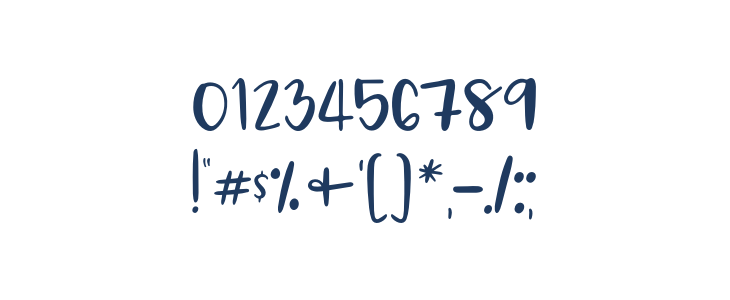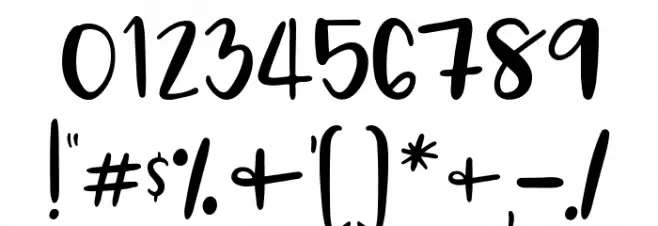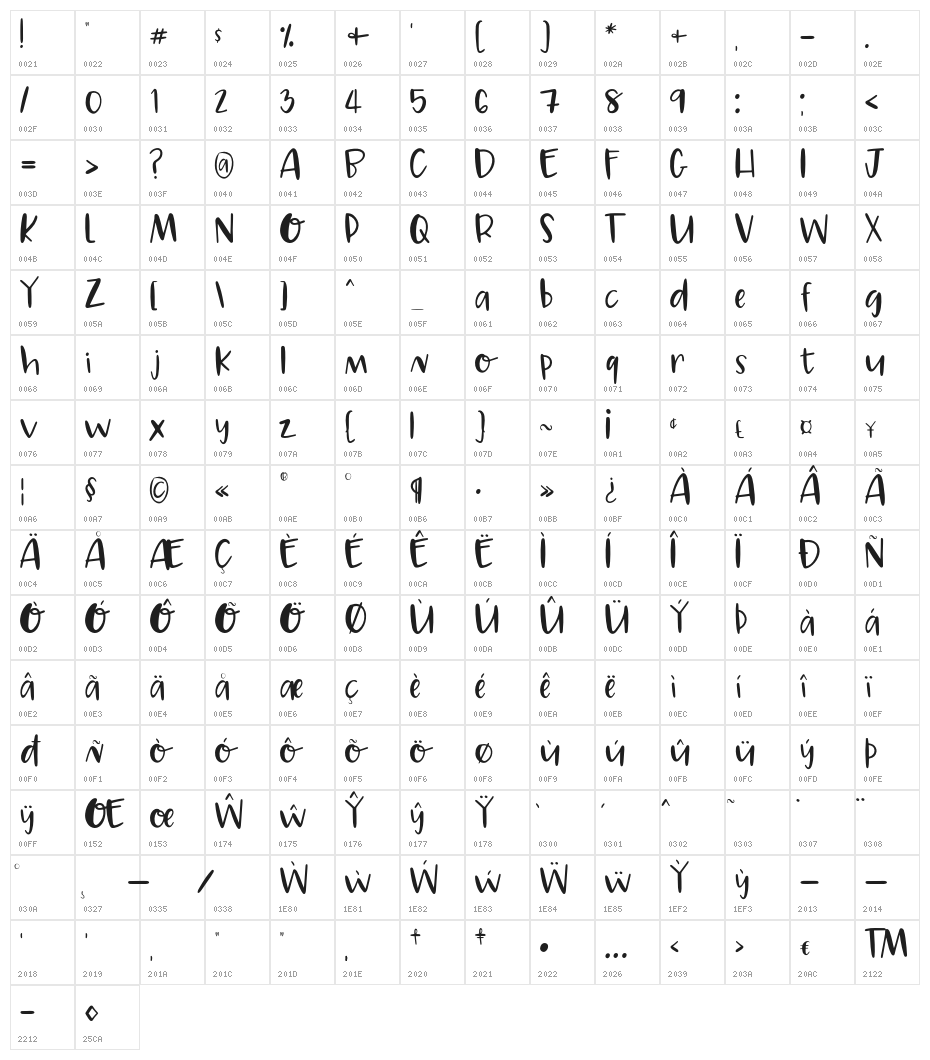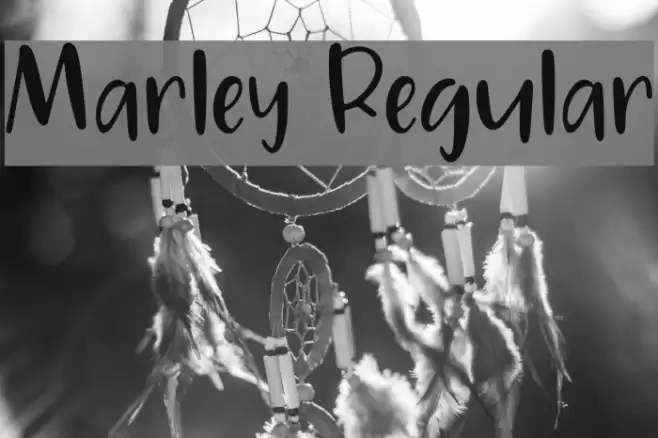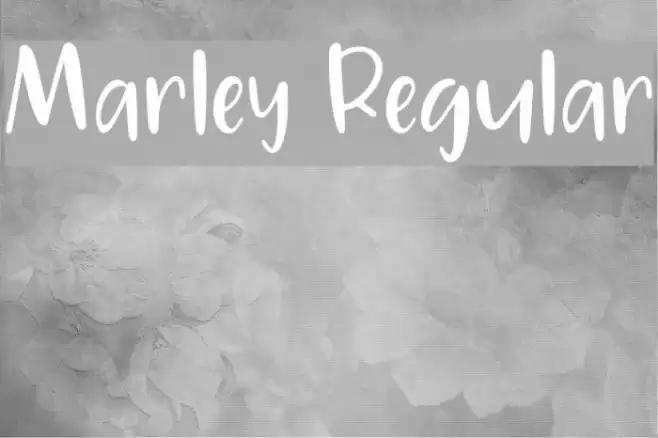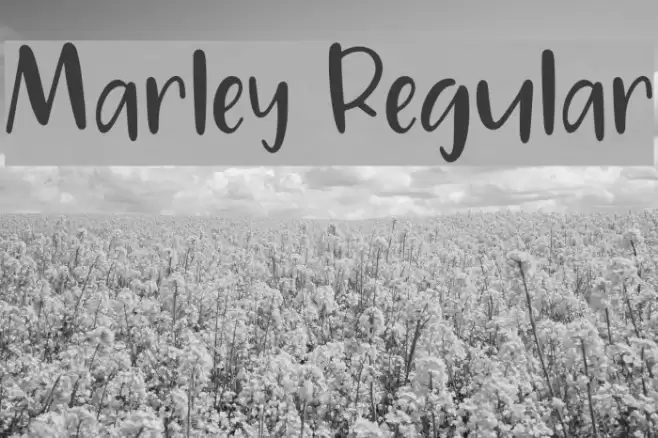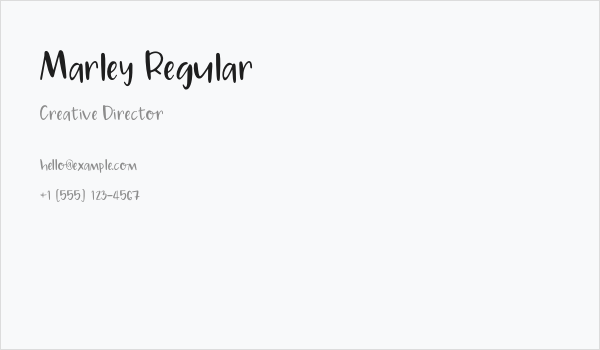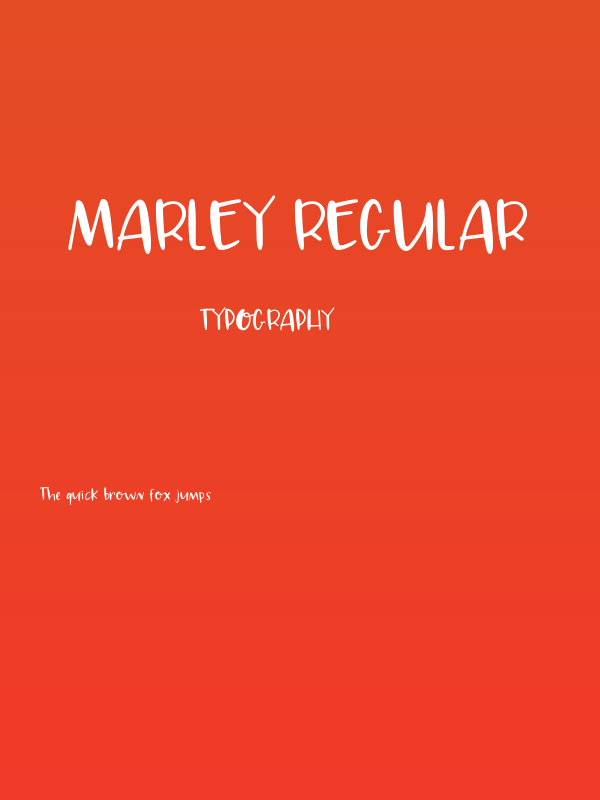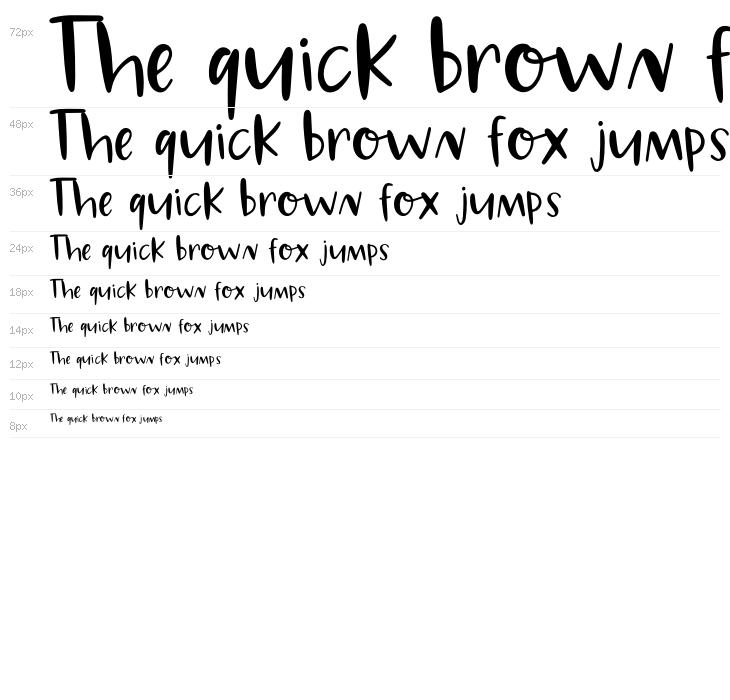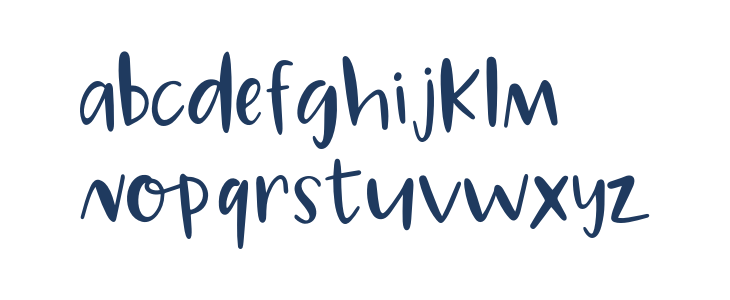
Marley Regular Font
Marley Regular Description
This font features a playful and casual handwritten style, characterized by its bold and slightly irregular strokes. The uppercase and lowercase letters exhibit a friendly and approachable appearance, with rounded edges and a consistent flow that mimics natural handwriting. The numerals and special characters maintain the same lively and informal aesthetic, making them suitable for creative and informal designs. The overall look is dynamic and energetic, perfect for projects that require a personal touch.
| Proposed Projects | Ideal for greeting cards, invitations, posters, and branding that seeks a personal and informal touch. |